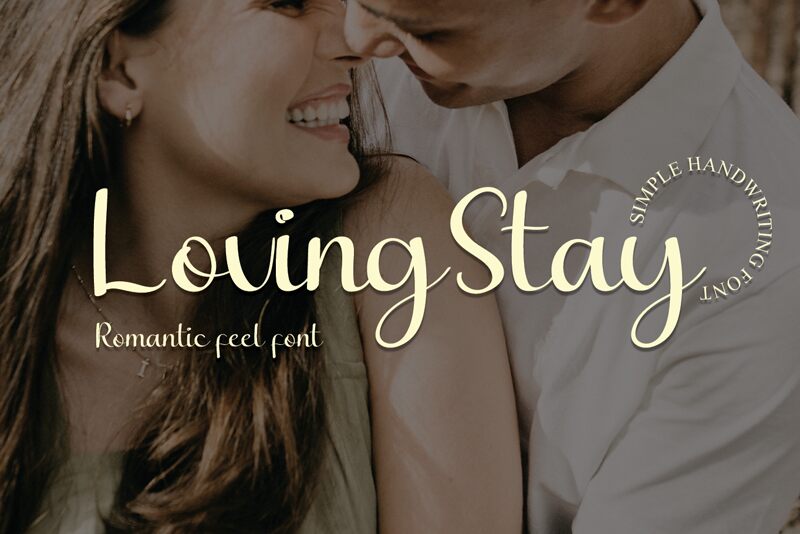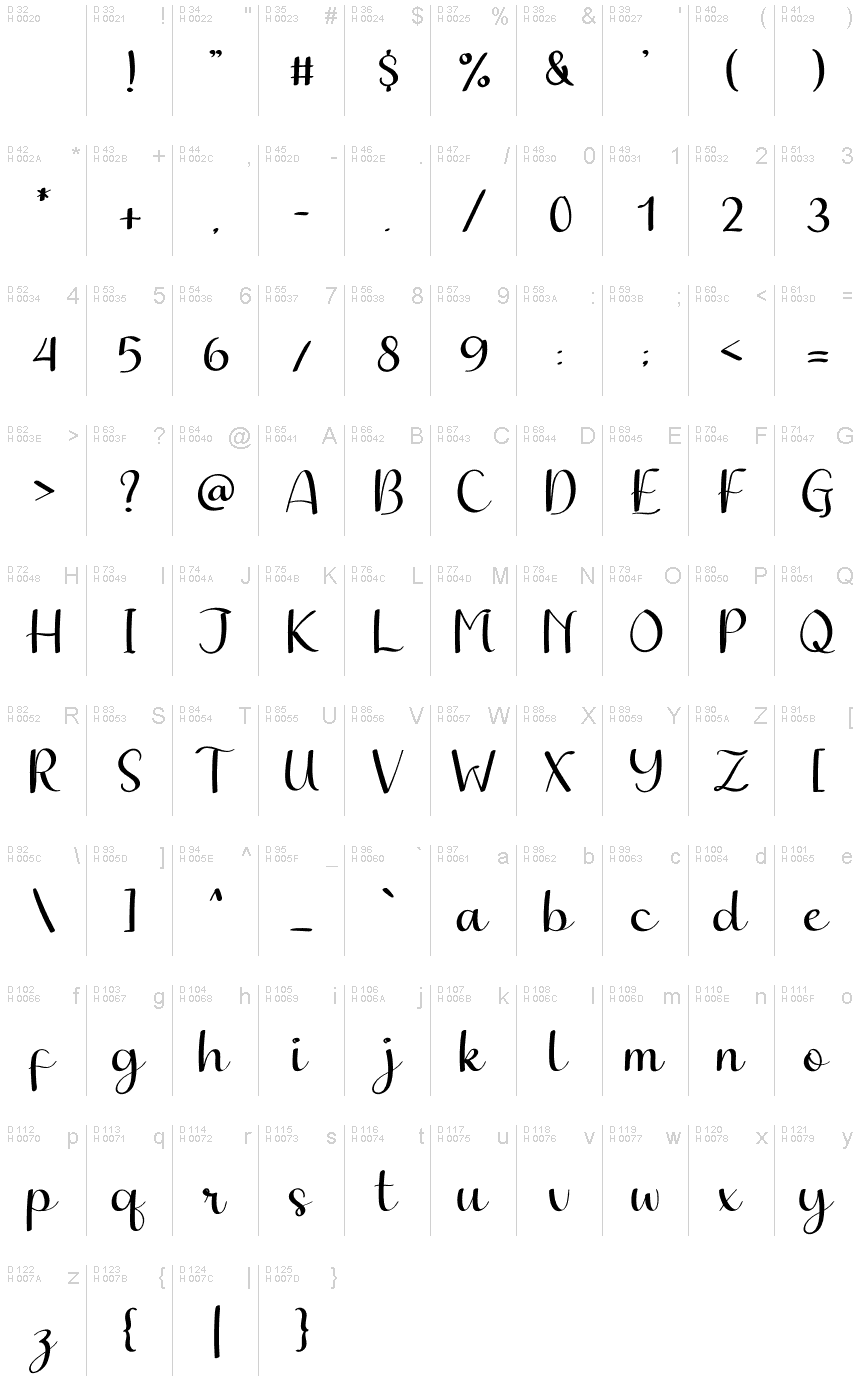
Loving Stay
Loving Stay is a lovely and delicate script font that exudes elegance and class. This font was particularly crafted for those who need a beautiful and refreshing look to their designs.